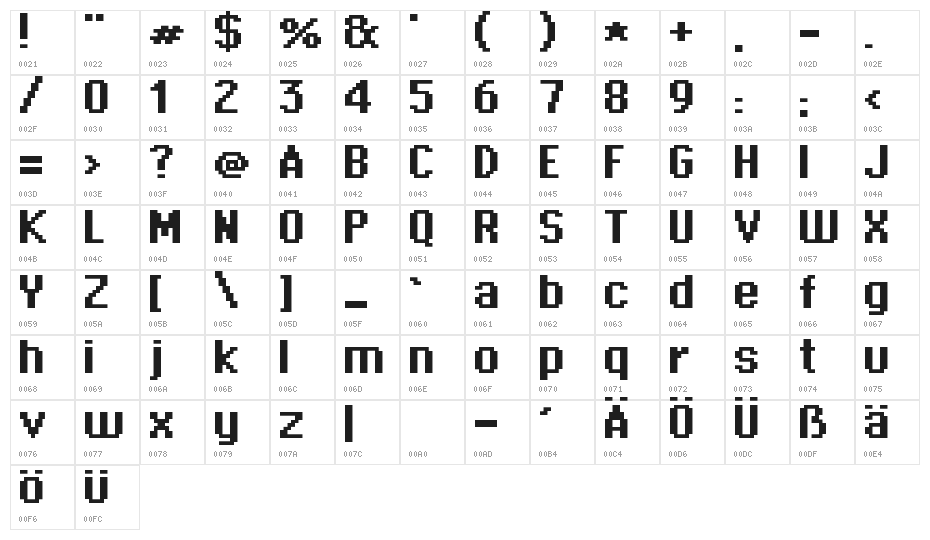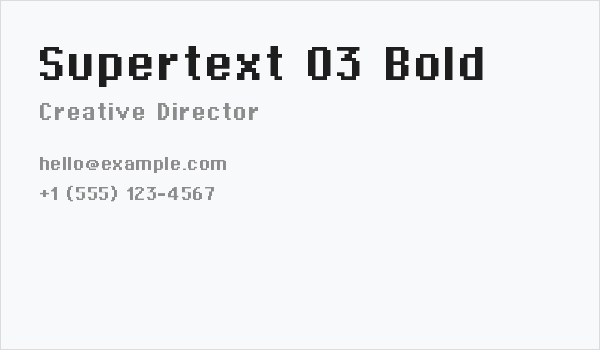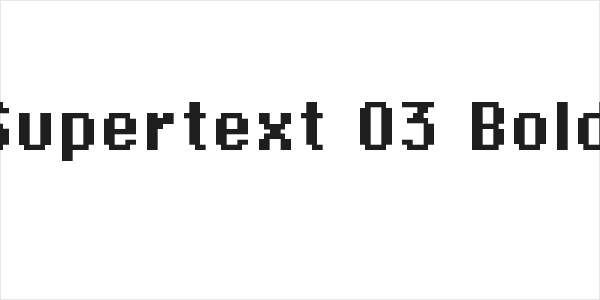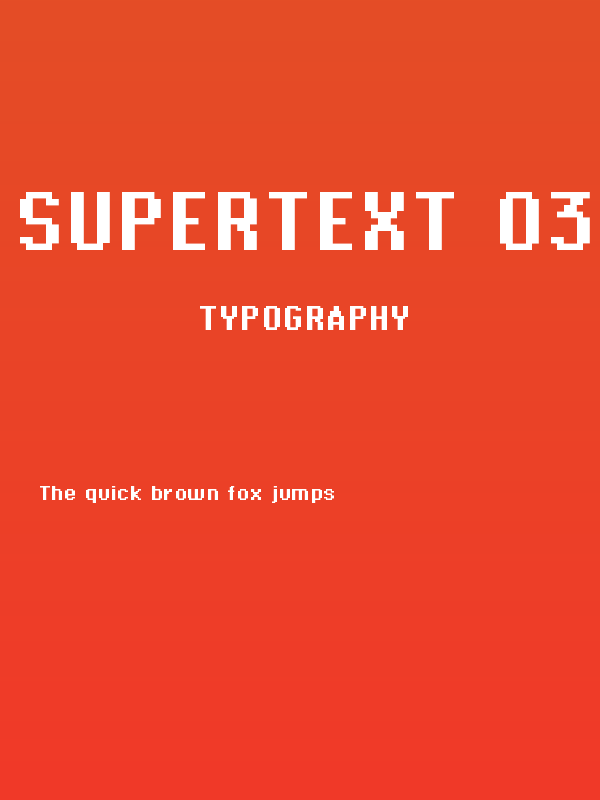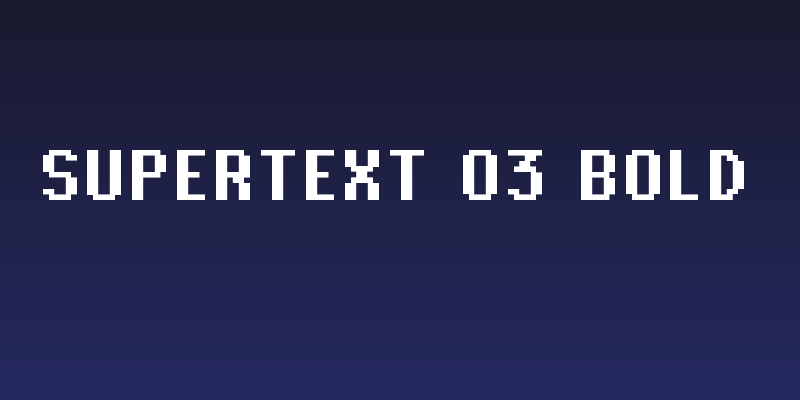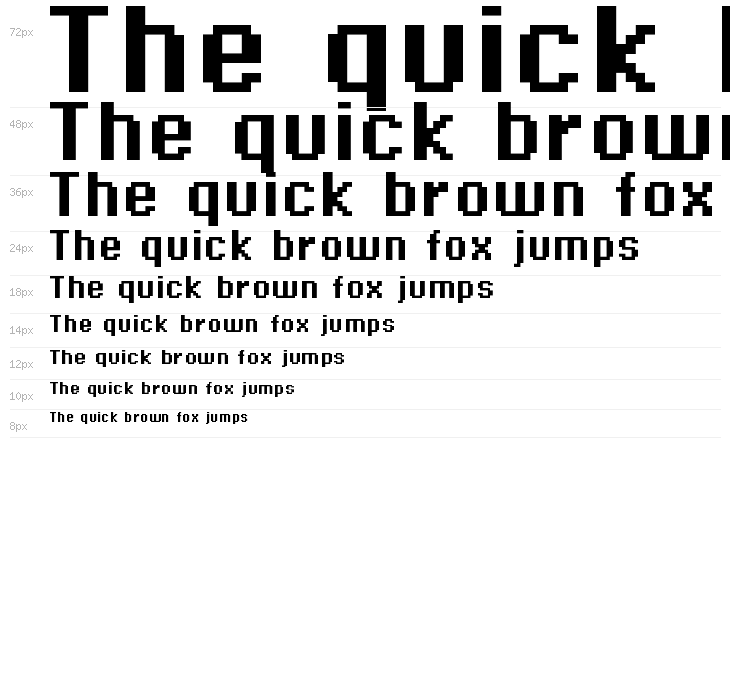
Supertext 03 Bold Font
Supertext 03 Bold Description
This font features a bold, pixelated style reminiscent of early digital displays and retro video games. The characters are uniformly blocky, with a consistent height and width that gives it a monospaced appearance. The uppercase and lowercase letters maintain a similar structure, enhancing readability while preserving the distinct pixelated aesthetic. Numbers and special characters follow the same design principles, ensuring a cohesive look across all glyphs. The font's simplicity and geometric form make it ideal for projects that aim to evoke nostalgia or a tech-oriented theme.
Overall StyleRetro, Digital
Use CaseHeadlines, Logos, Digital displays
Proposed ProjectsIdeal for retro video game graphics, tech-themed posters, digital art, and nostalgic branding.